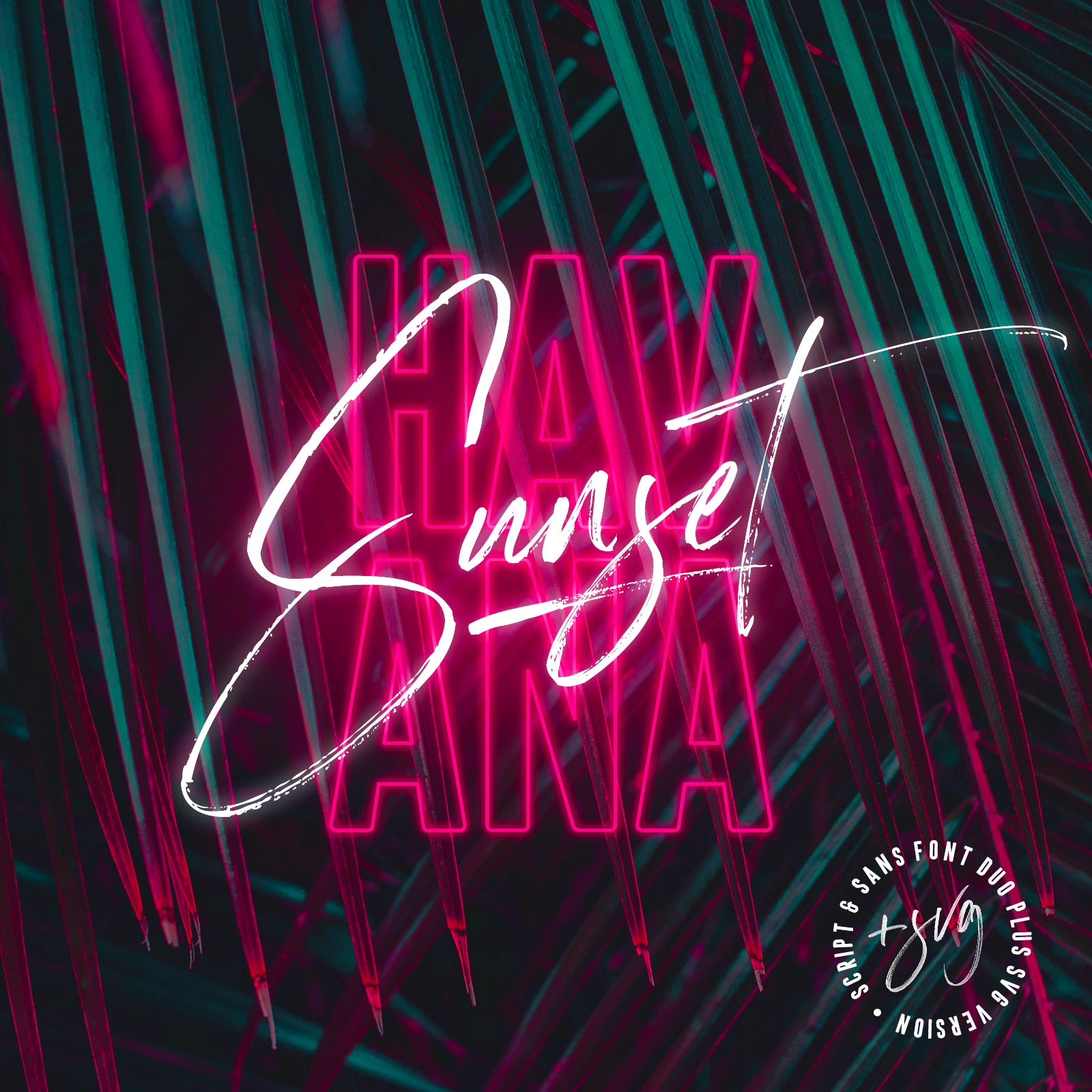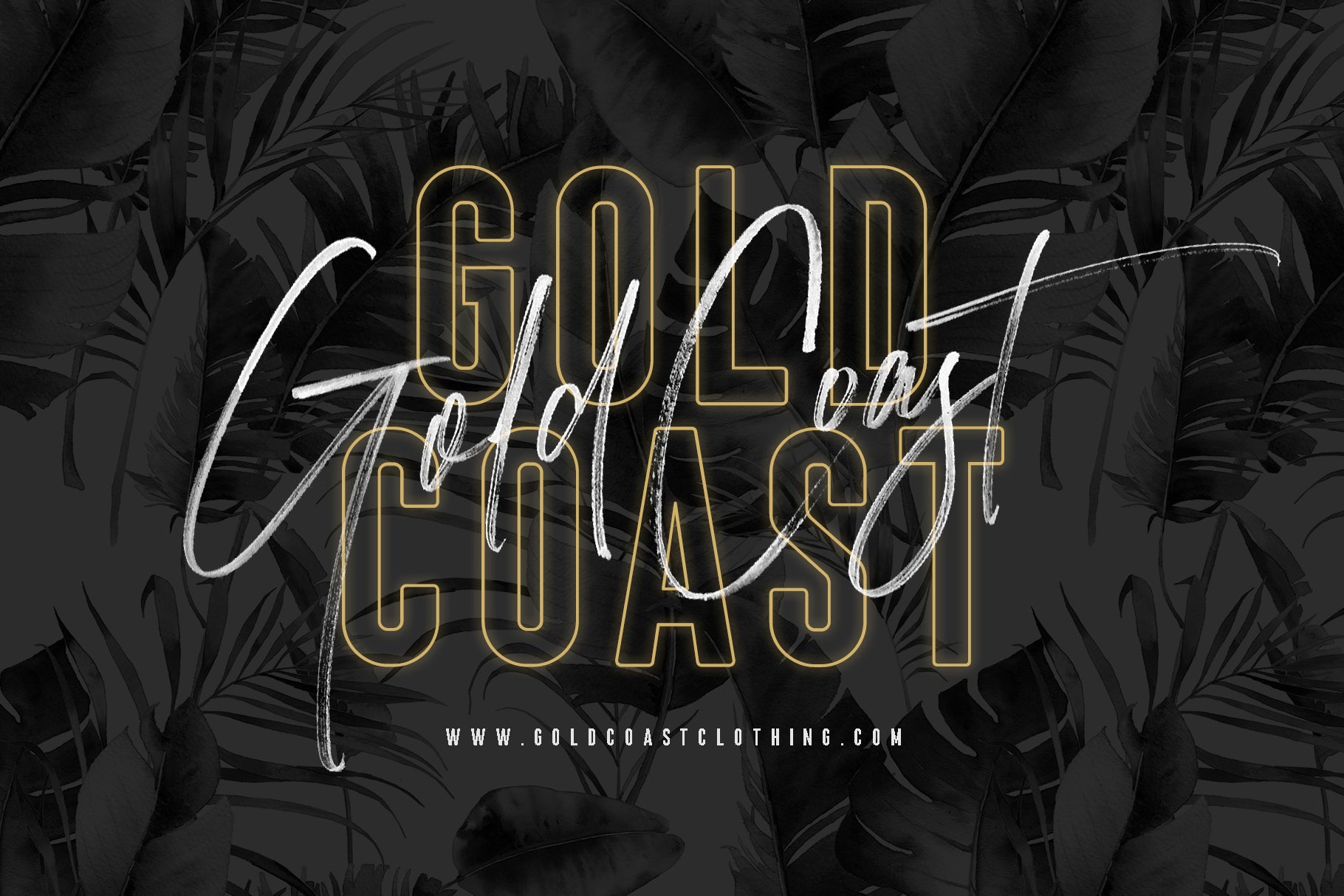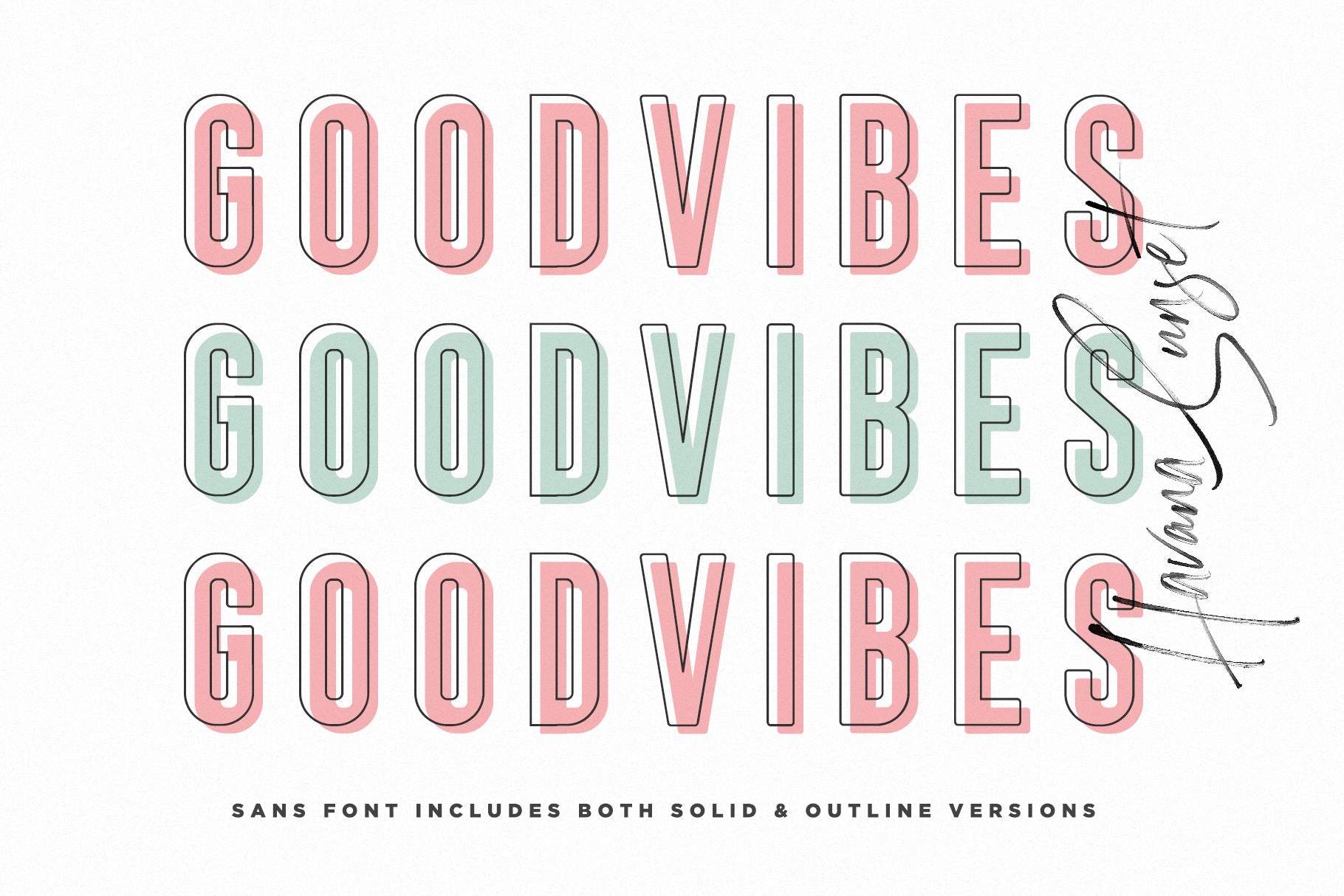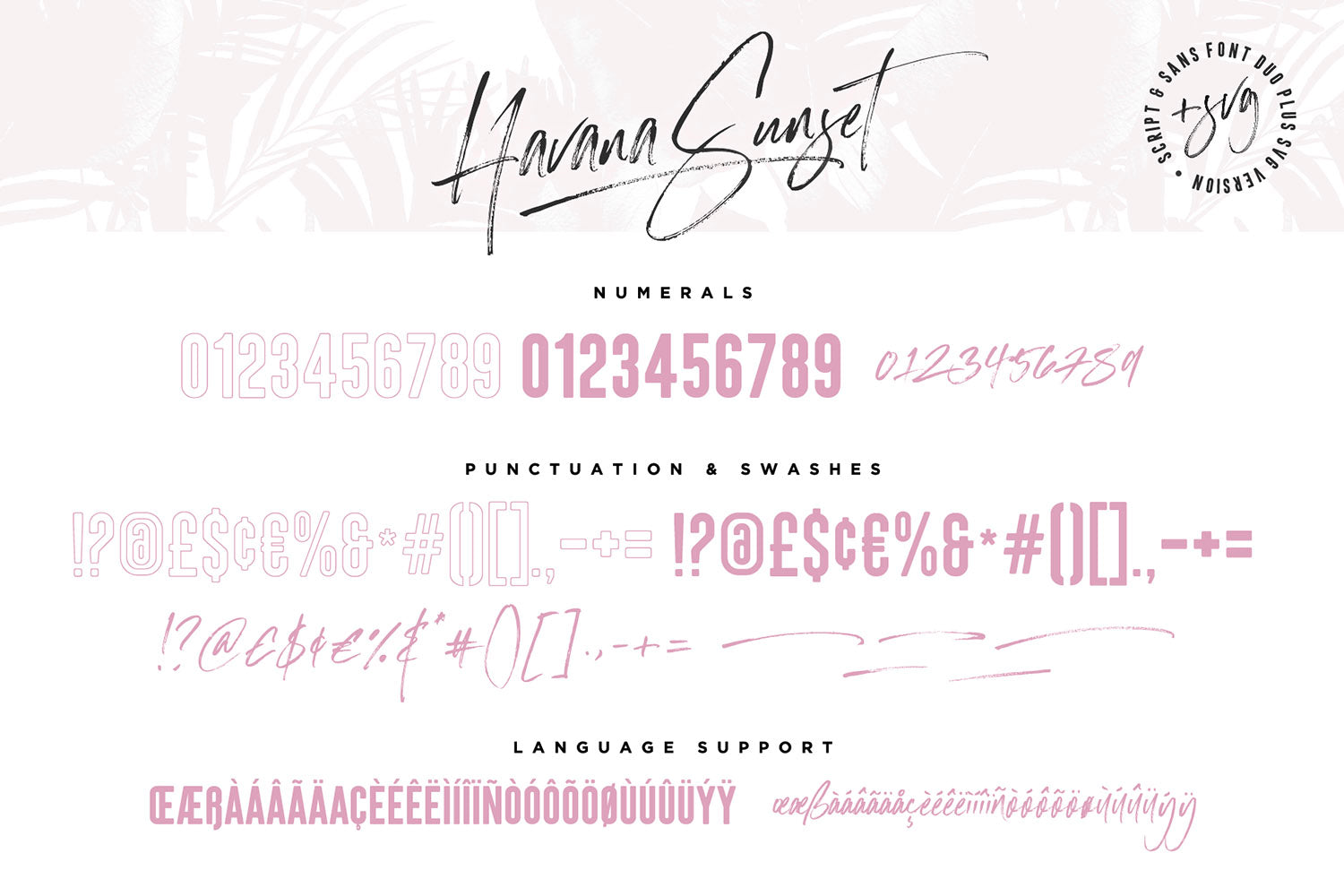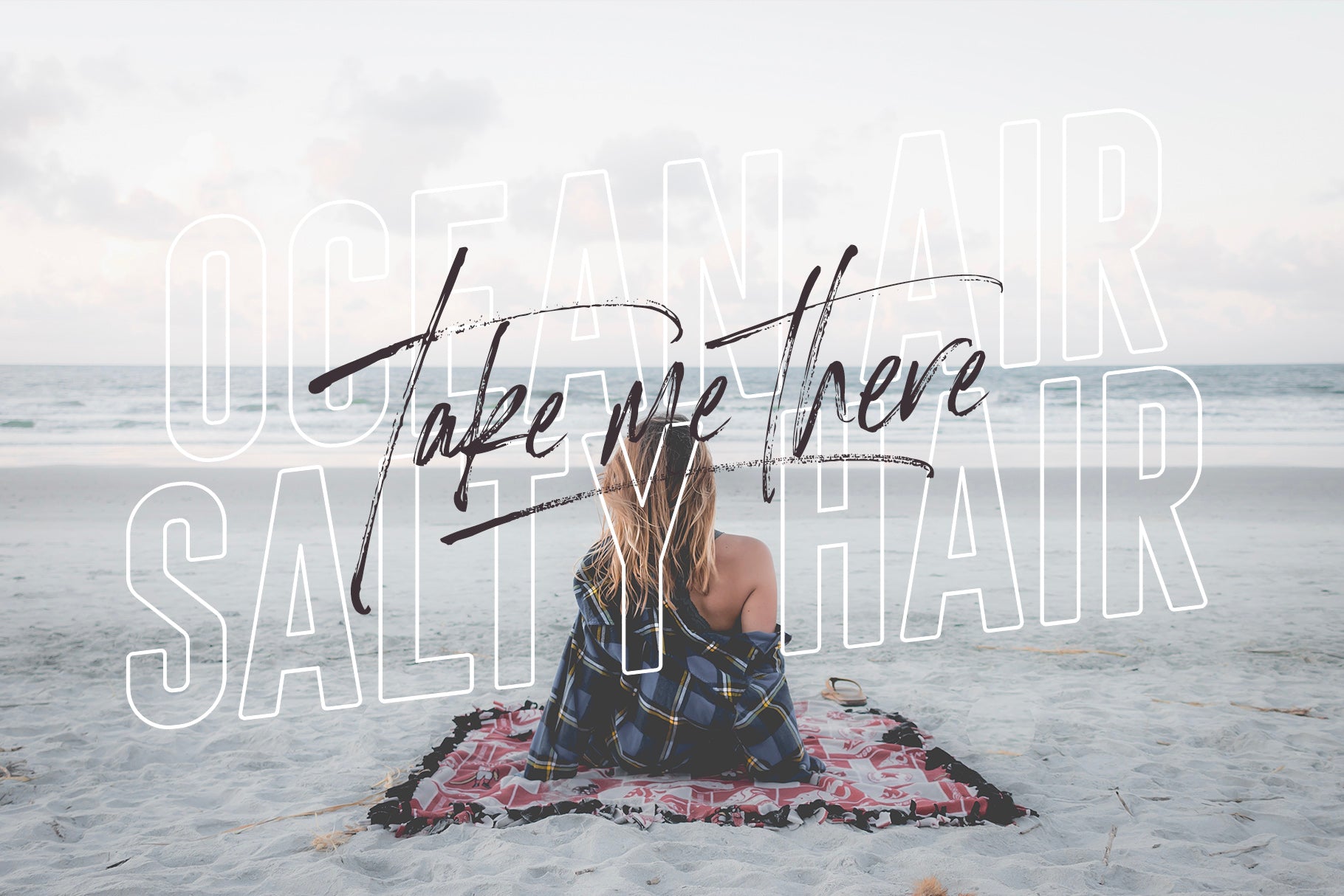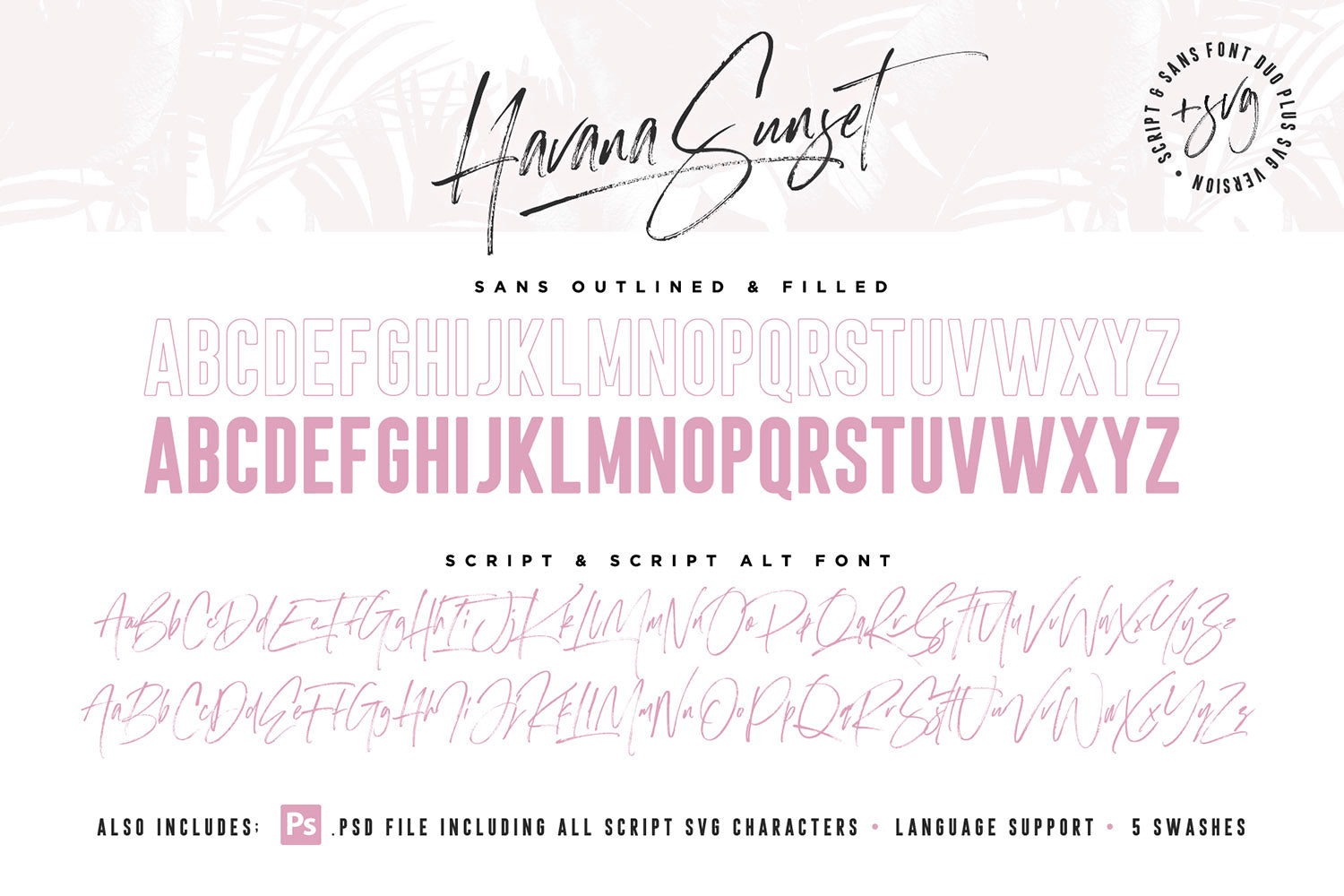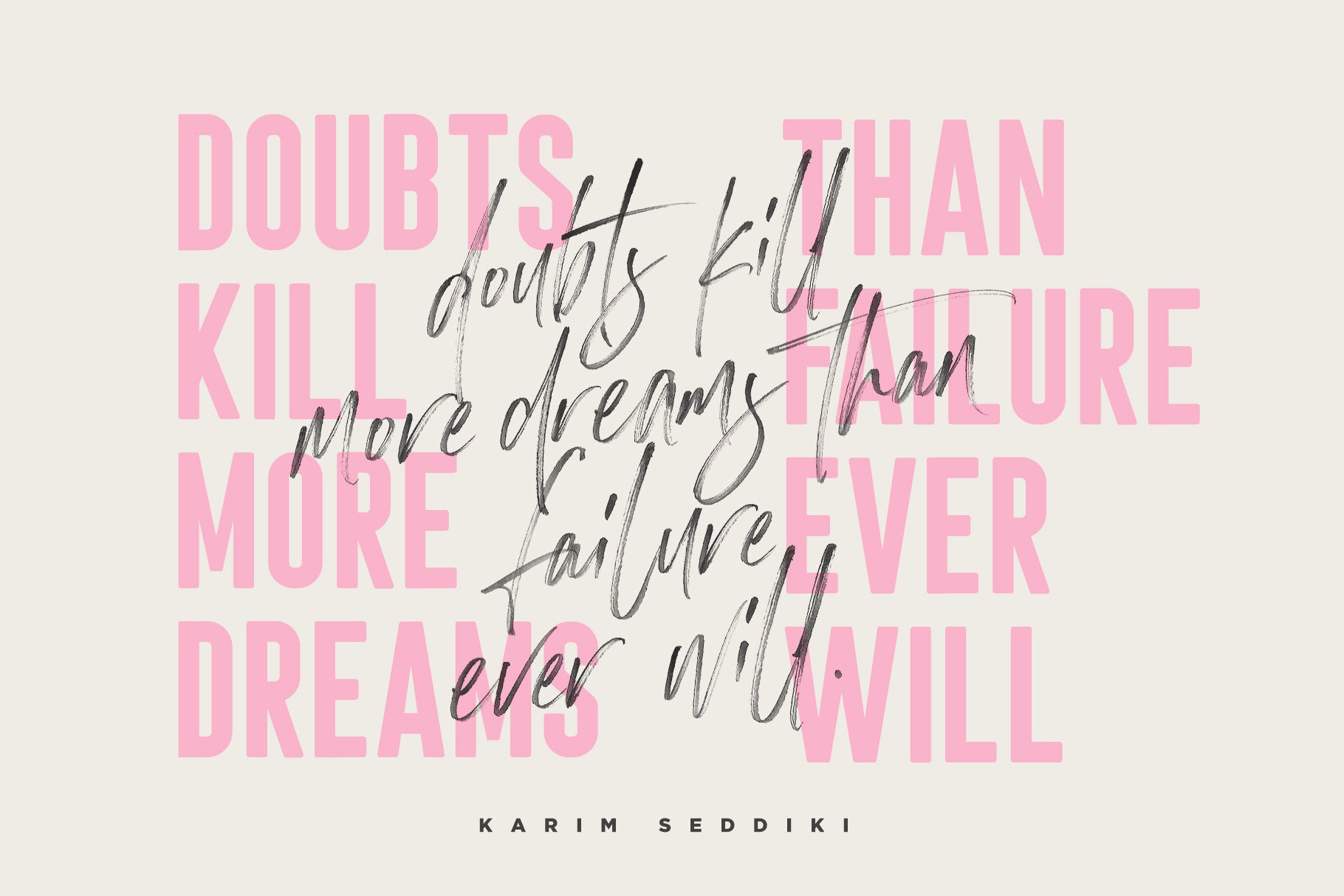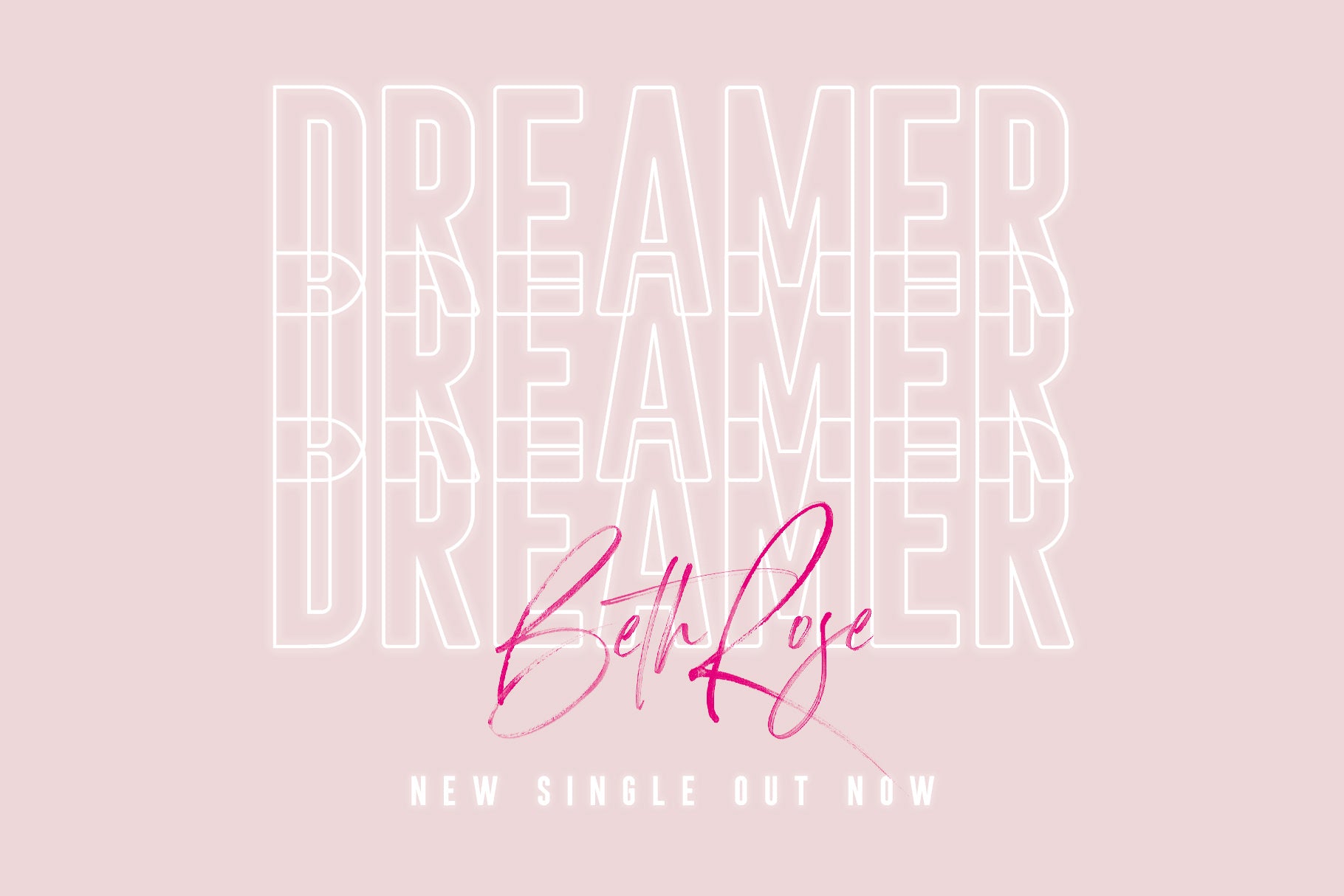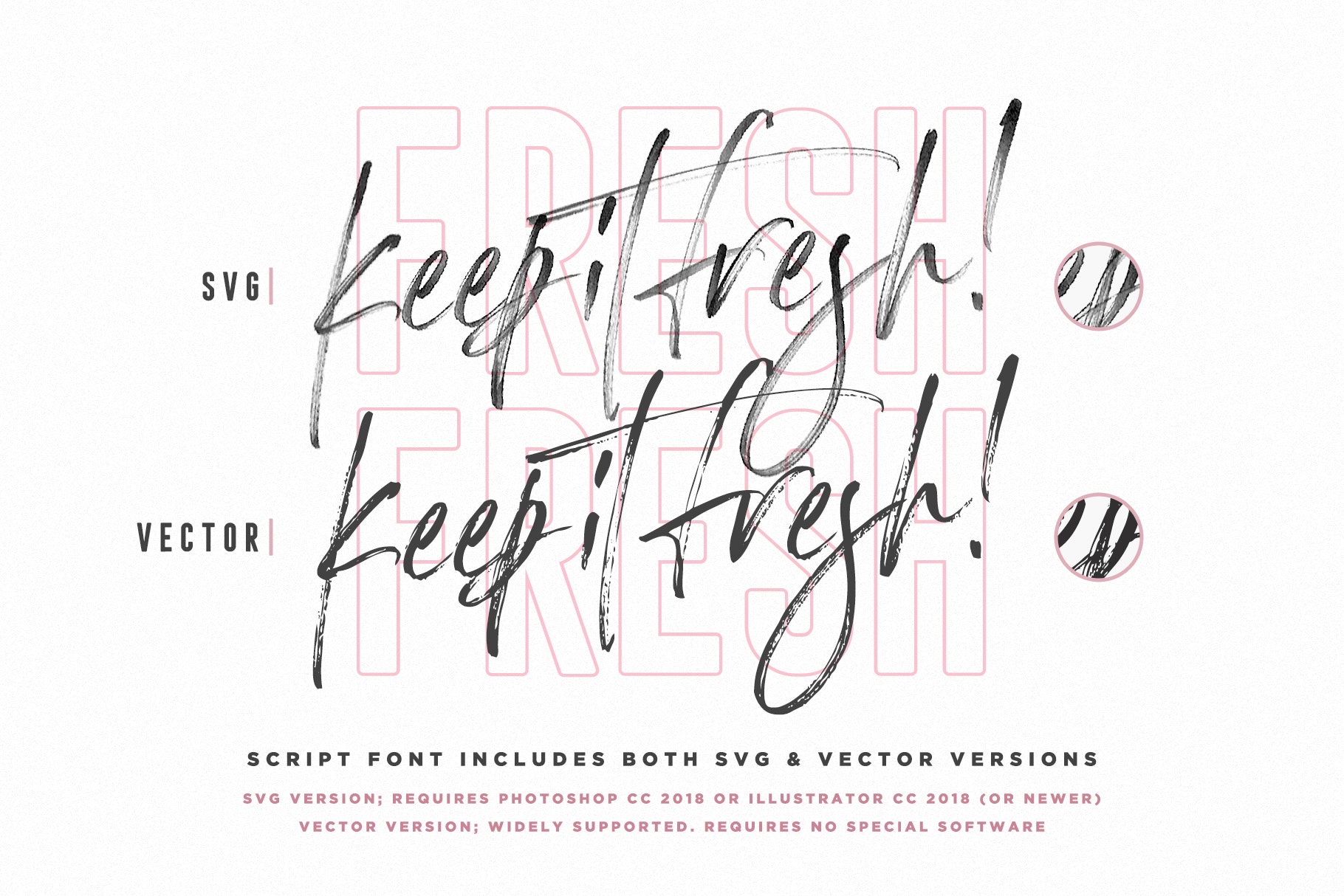
Havana Sunset Font Duo + SVG
The Havana Sunset Font Duo + SVG includes a textured script font and a bold all-caps sans-serif font, offering a versatile typography pairing. It features traditional vector and high-definition SVG formats, additional alternate characters, swashes for embellishment, and a layered Photoshop file for easy access to SVG glyphs.